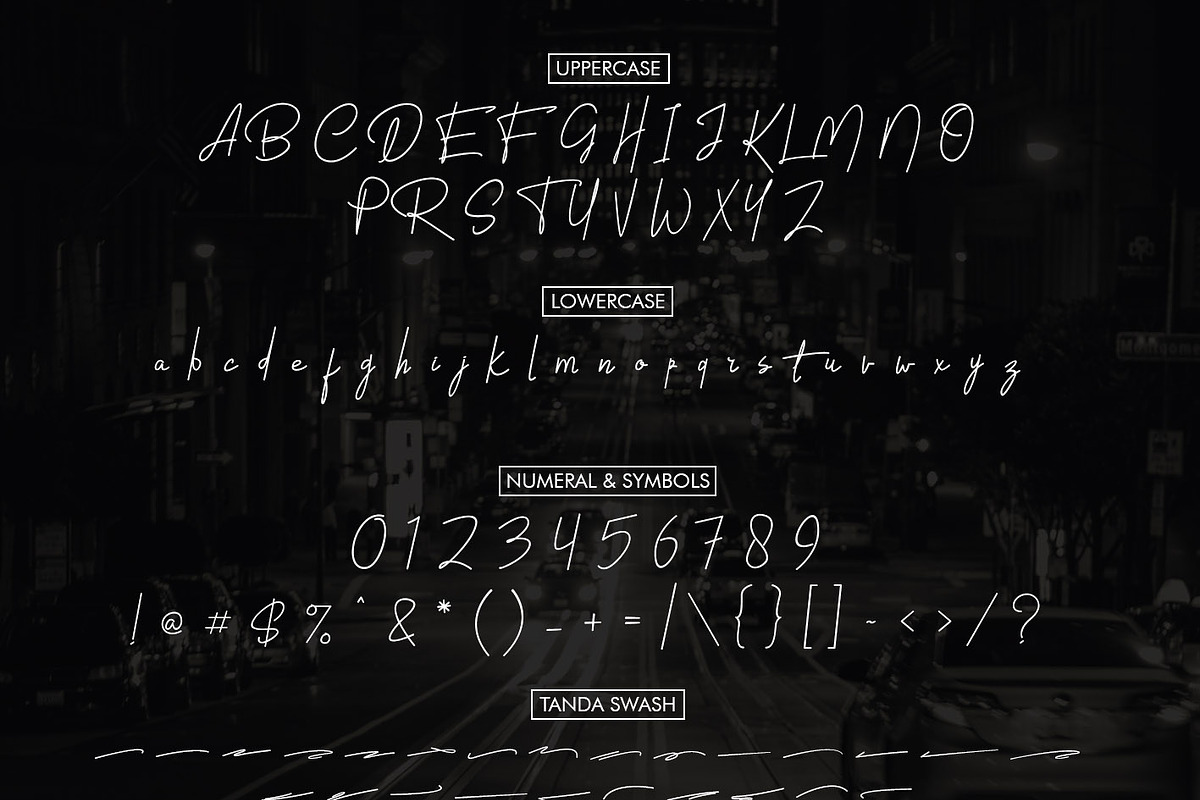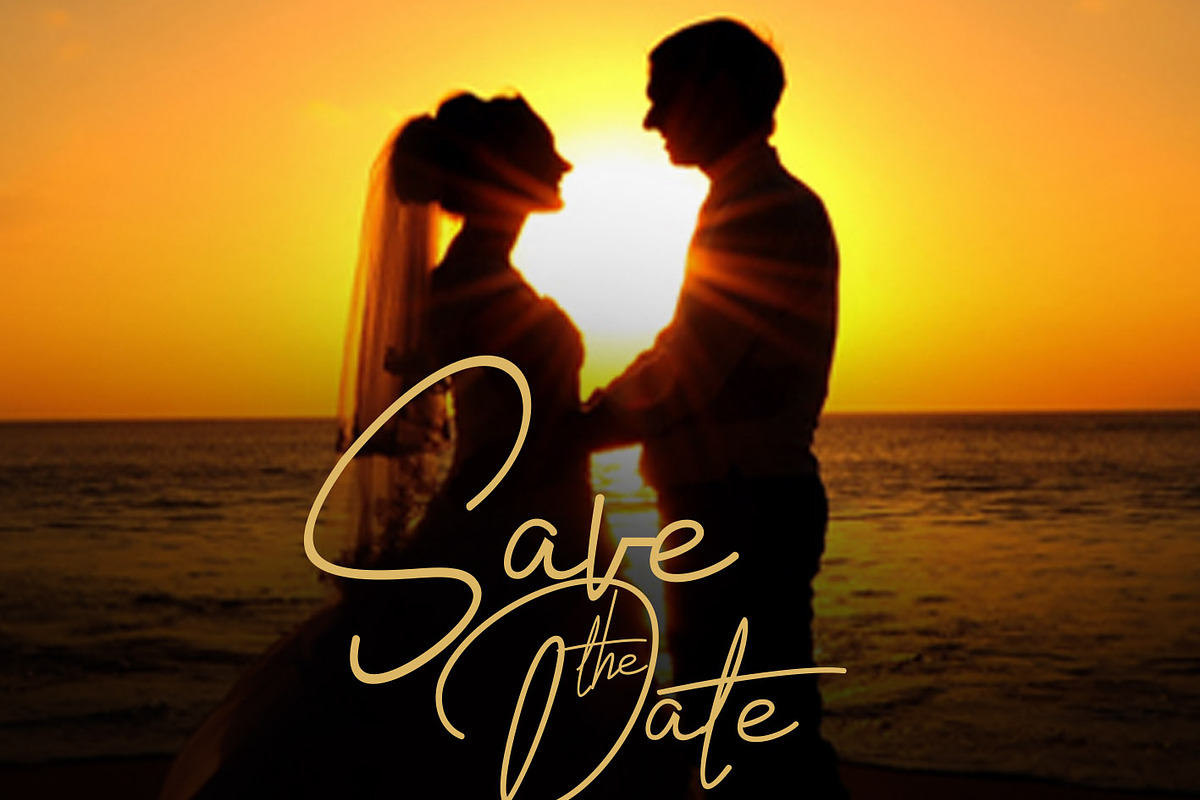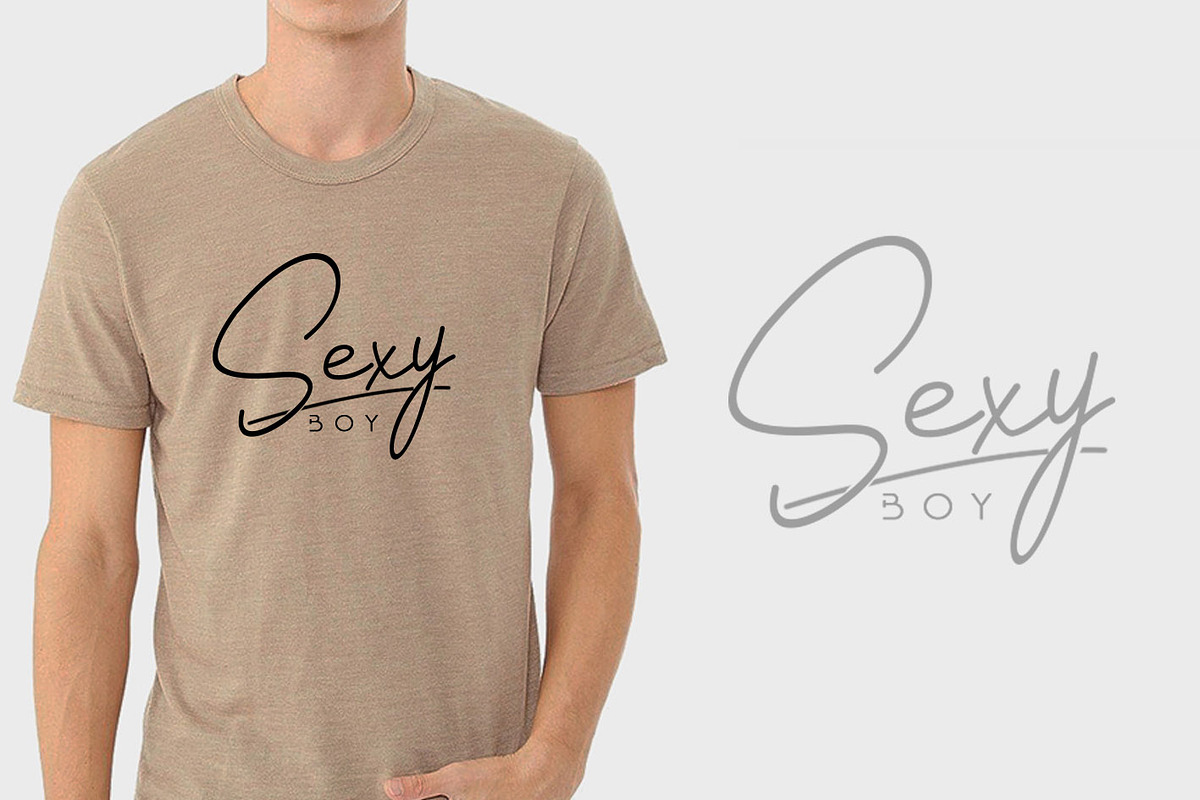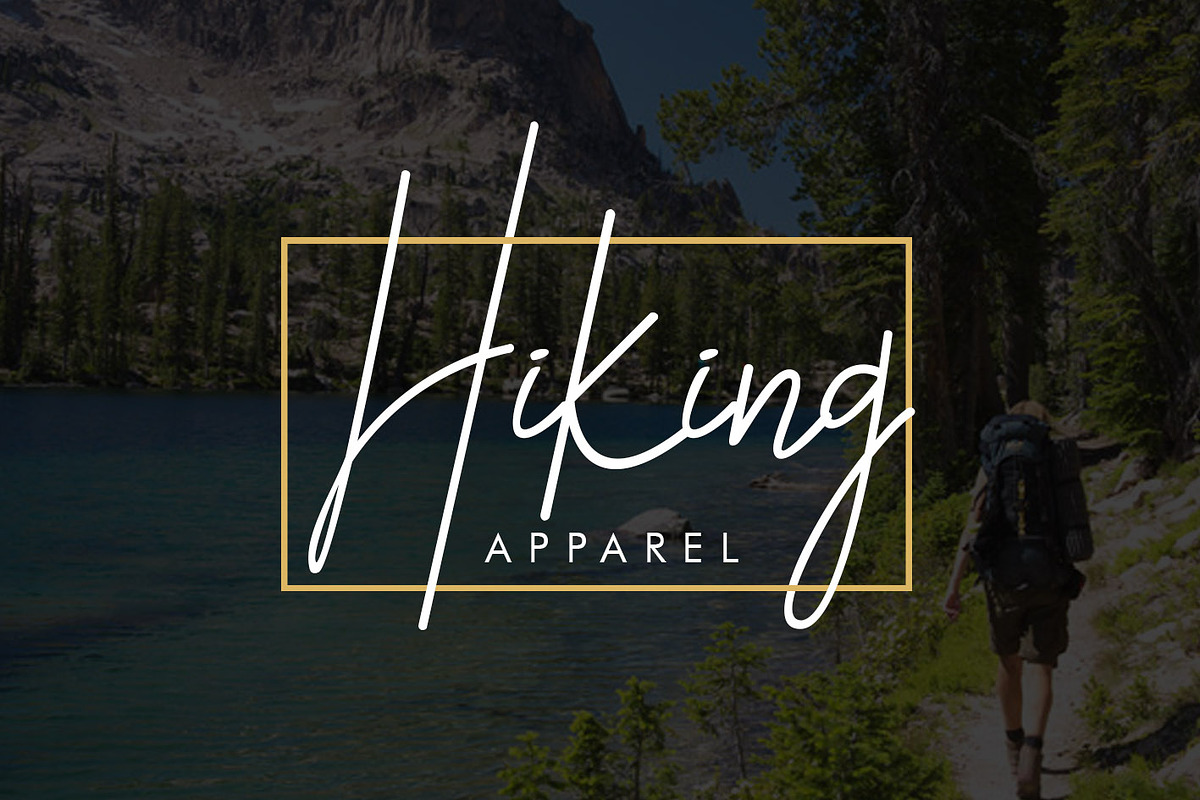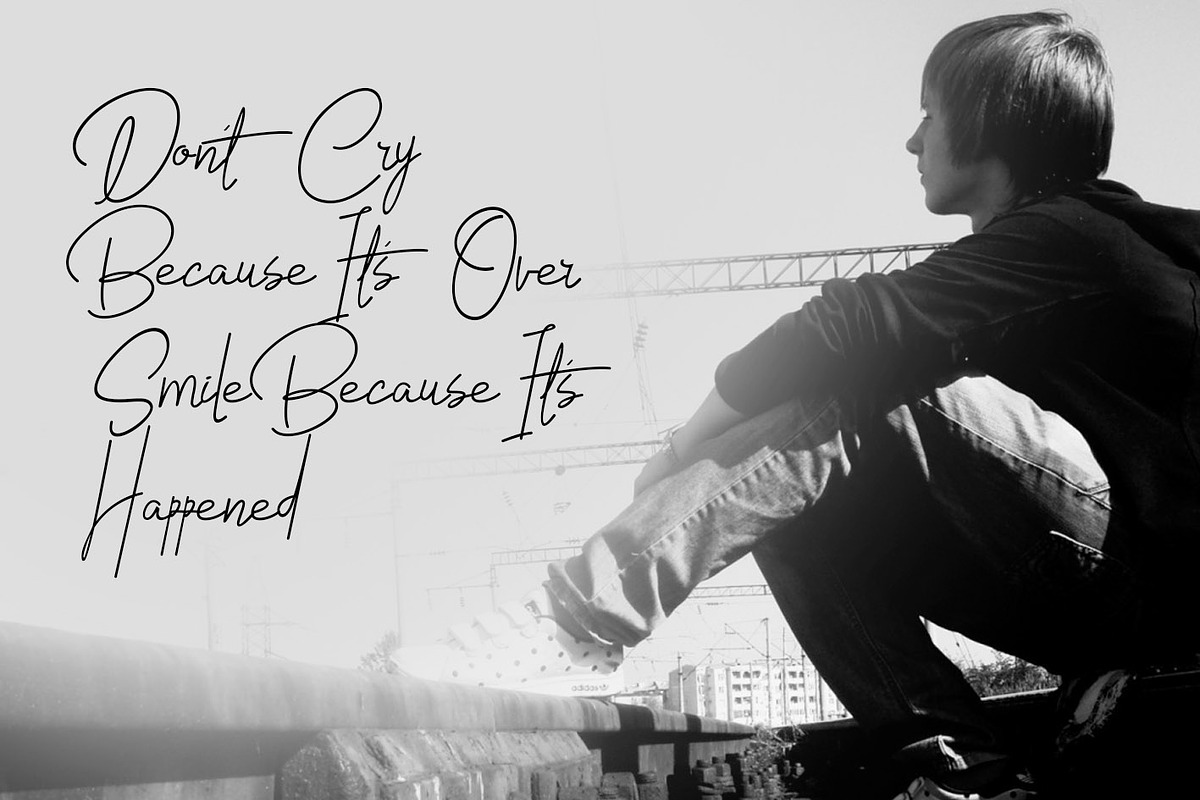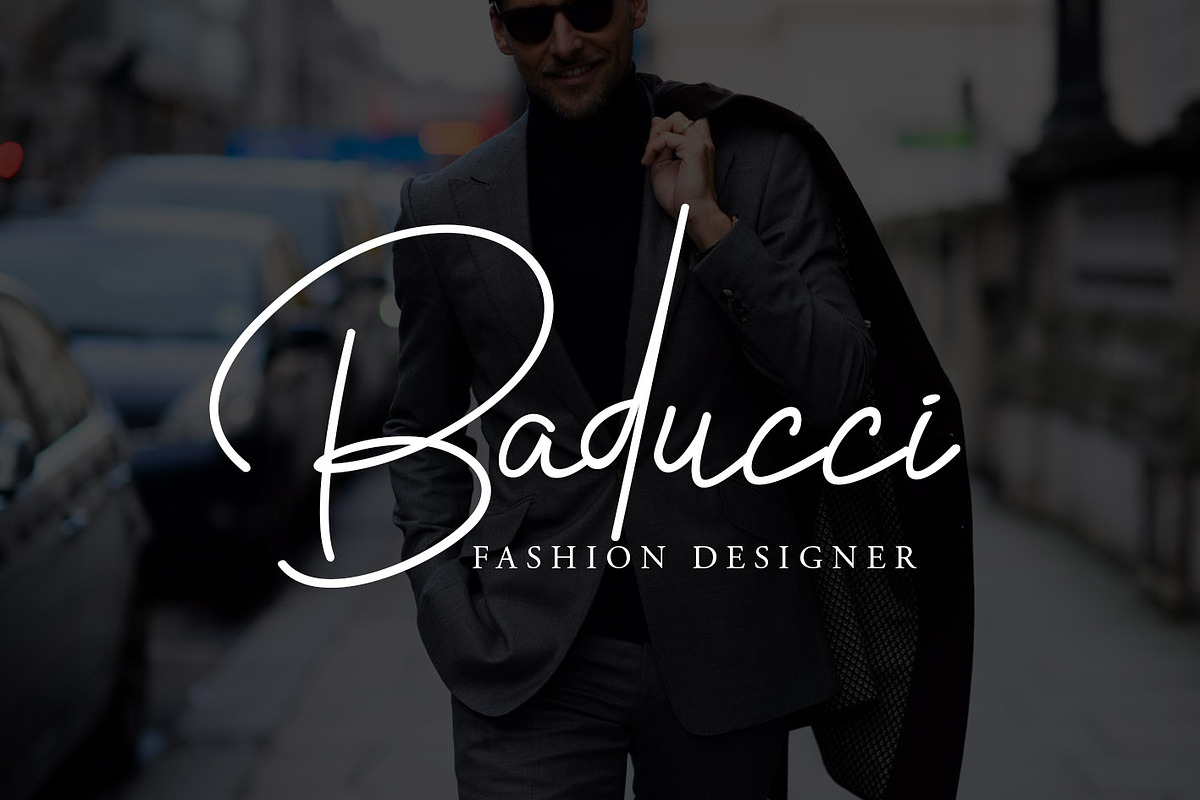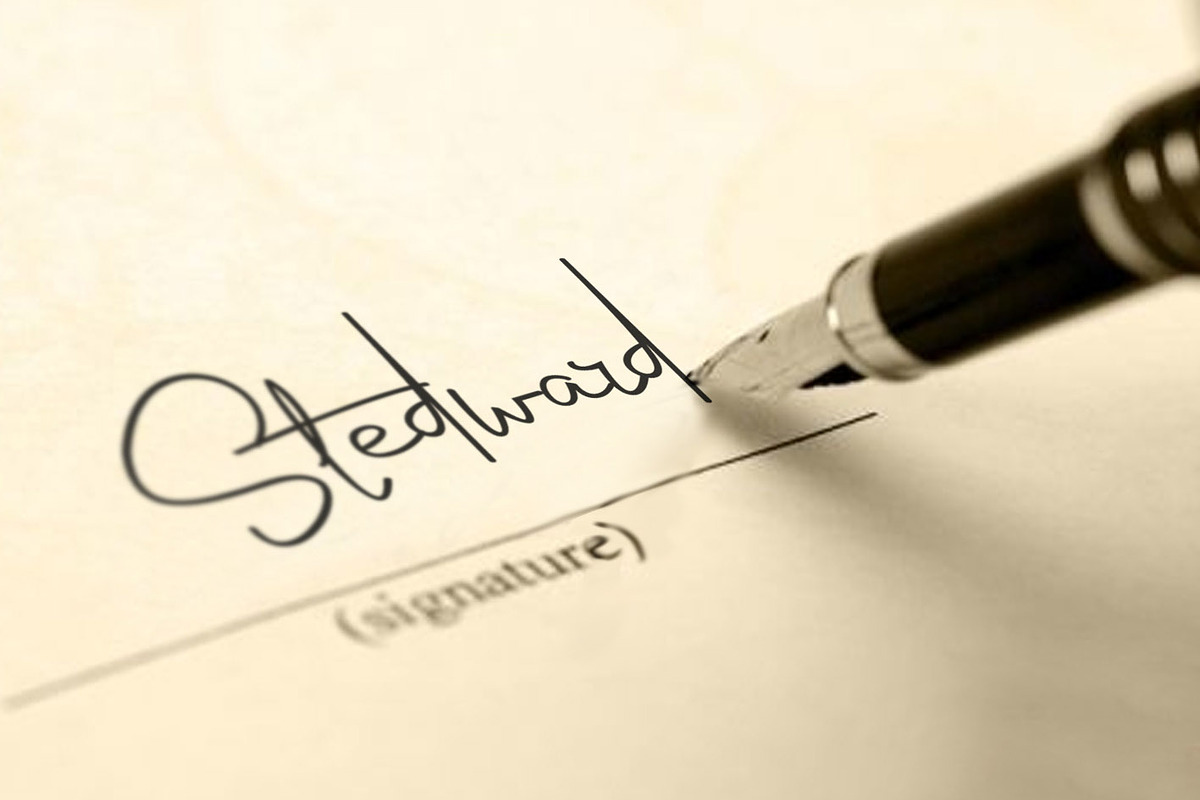
Tanda Signature Font
Tanda Signature Font by khurasan is a font selected for branding, posters, packaging, typography.
Why Tanda Signature Font is worth a look
Tanda Signature Font by khurasan fits naturally into Branding, posters, packaging, typography.